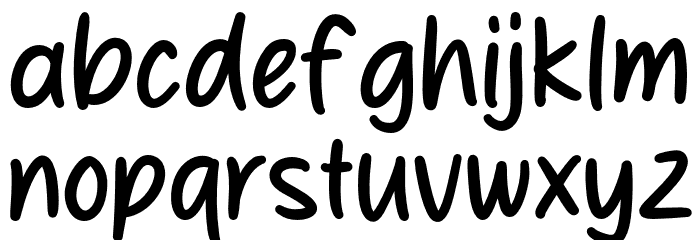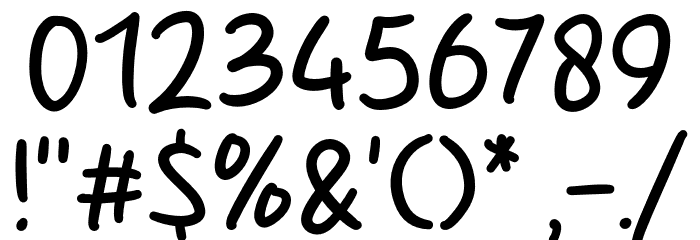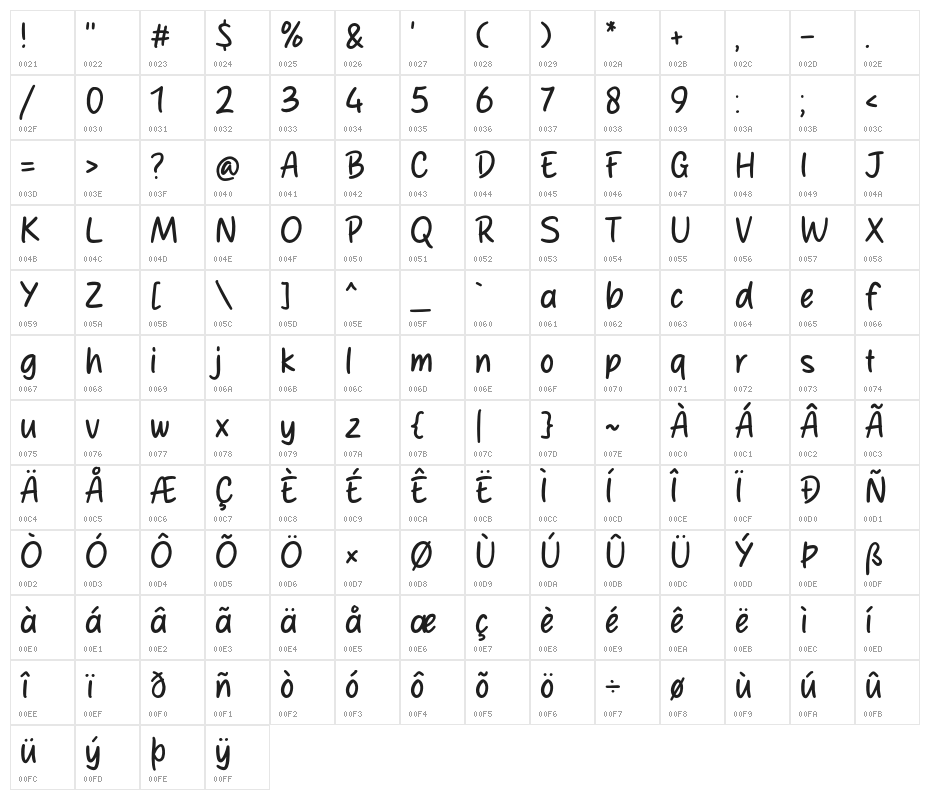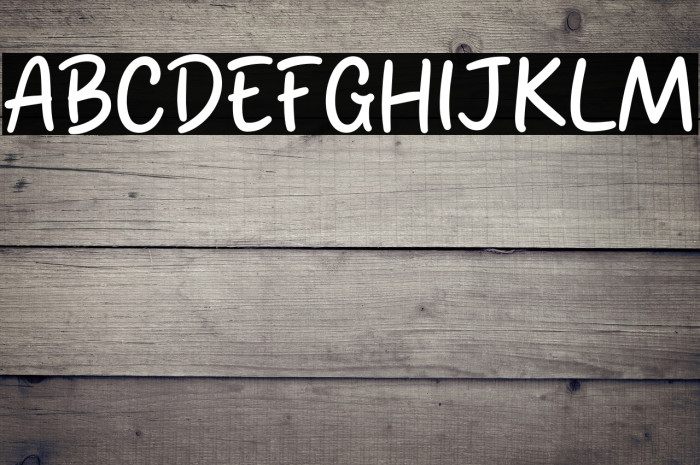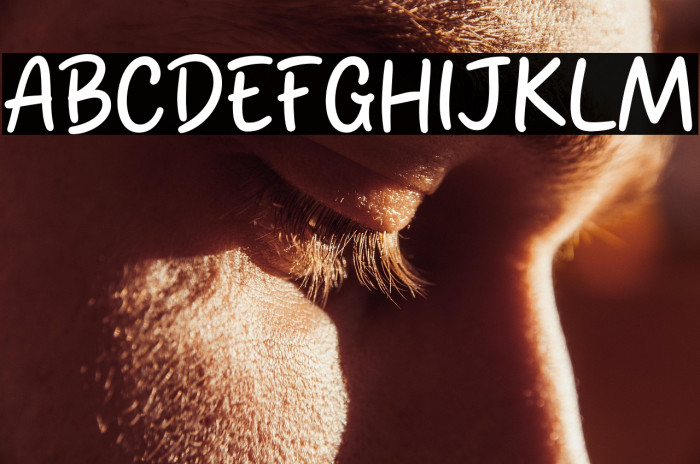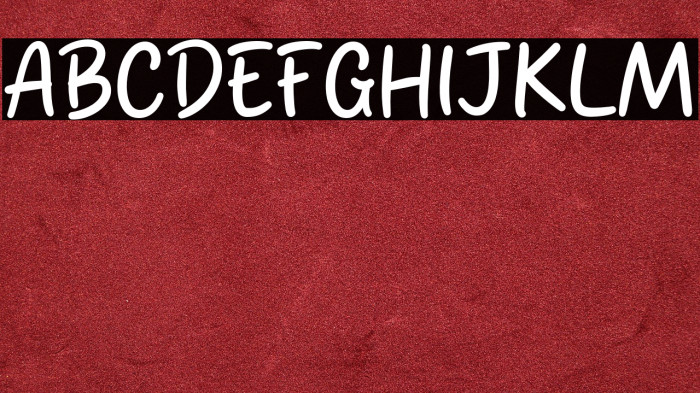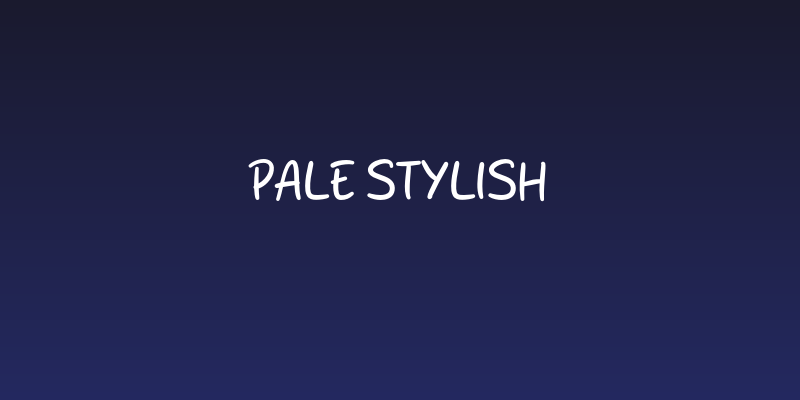
Pale Stylish Font
This font exhibits a playful and casual handwritten style, characterized by its smooth curves and rounded edges. The letters are slightly slanted, giving a dynamic and energetic feel. The uppercase and lowercase letters maintain a consistent flow, with a moderate height difference between them. Numbers and special characters are designed to match the overall aesthetic, ensuring a cohesive look. The strokes are uniform, providing a clean and approachable appearance. This font is versatile, suitable for both digital and print media, and can easily capture attention with its friendly and informal vibe.
A playful, handwritten font with smooth curves and a casual style.
- Font: Pale Stylish
- Proposed Projects: Ideal for greeting cards, invitations, personal branding, and social media graphics.
- Category: Handwritten
- Overall Style: Casual
- Use Case: Headlines, Logos, Informal Text